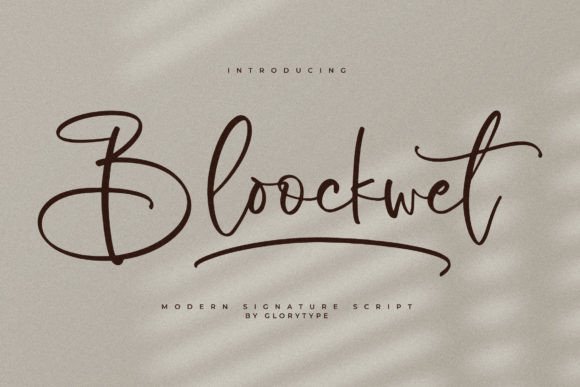
The Bloockwet Font: A Modern Signature Style for Your Creative Projects
Have you ever been in the middle of a design project, and suddenly, you’re stuck on finding the perfect font? I recall a recent experience where a client requested a modern, elegant signature font for their branding project. After hours of searching, I stumbled upon the Bloockwet font, and it instantly became the perfect fit. In this article, we’ll dive into the world of Bloockwet, exploring its features, uses, and everything in between.
As a designer, I’m always on the lookout for versatile and stylish fonts that can elevate my projects. Bloockwet caught my attention with its modern signature style, perfect for a wide range of applications, from logos and branding to homeware designs, product packaging, and more.
An Honest Review of Bloockwet
What I Love About Bloockwet ✨
- 💫 Modern and elegant: Bloockwet boasts a sleek, contemporary design that adds a touch of sophistication to any project.
- ✅ Highly versatile: This font is suitable for various applications, including logos, branding projects, homeware designs, product packaging, and more.
- 📚 Script taste: Bloockwet has a beautiful script style that brings a sense of elegance and refinement to your designs.
- ⚠️ Limited use in body text: Due to its script nature, Bloockwet might not be the best choice for lengthy body text. It’s better suited for headings, titles, or short phrases.
- ⚠️ Requires attention to spacing: As with any script font, it’s essential to adjust the spacing to ensure optimal readability.
The Backstory of Bloockwet
While the origins of Bloockwet are shrouded in mystery, it’s clear that this font was designed with the modern creative in mind. With its sleek lines, elegant curves, and versatile nature, Bloockwet is the perfect addition to any design project.
| Font Name | Bloockwet Font |
| Author | Glorytype Studio |
A: Bloockwet is perfect for logos, branding projects, homeware designs, product packaging, mugs, quotes, posters, shopping bags, t-shirts, book covers, name cards, invitation cards, greeting cards, labels, photography, watermarks, and more.